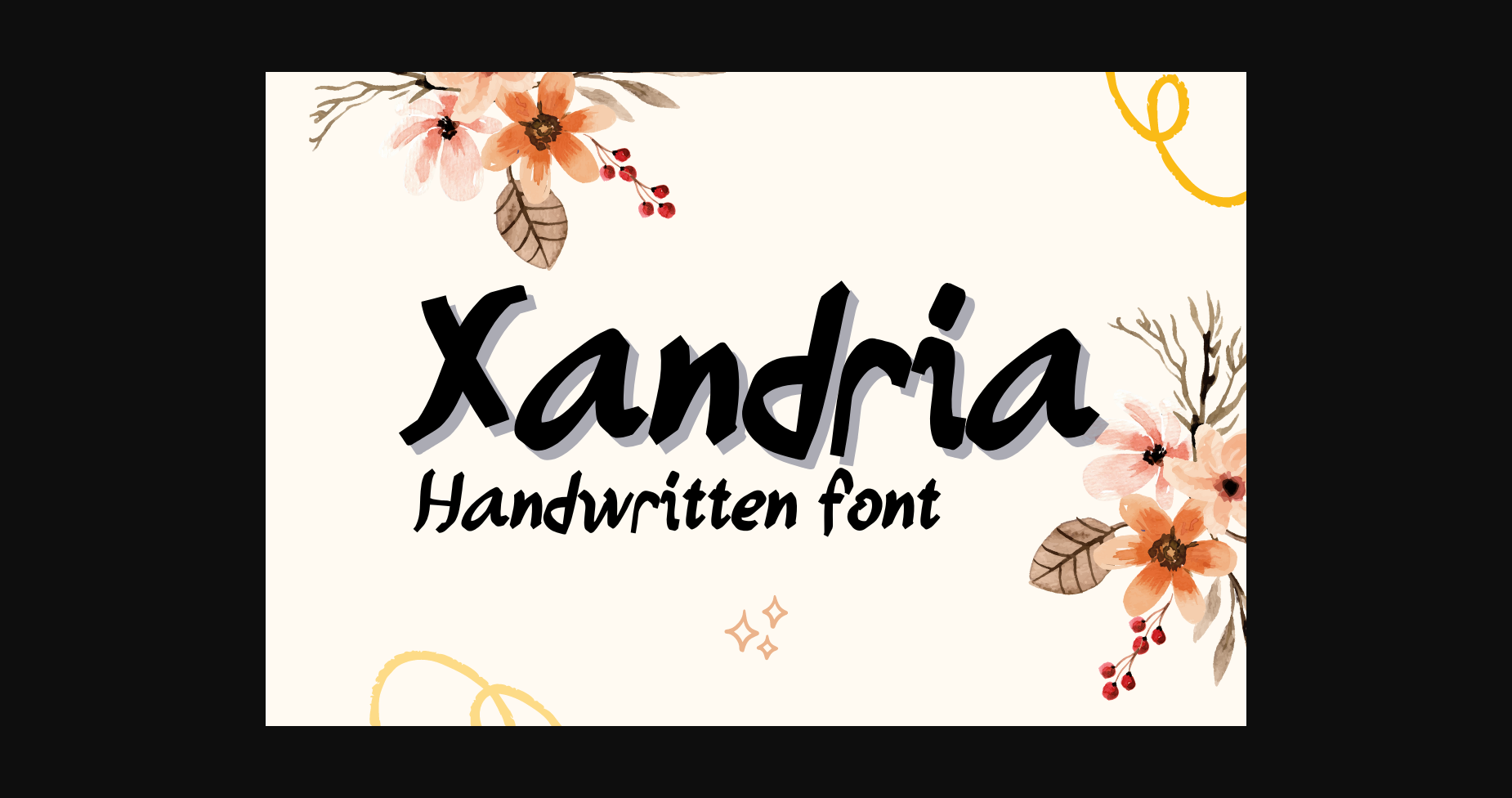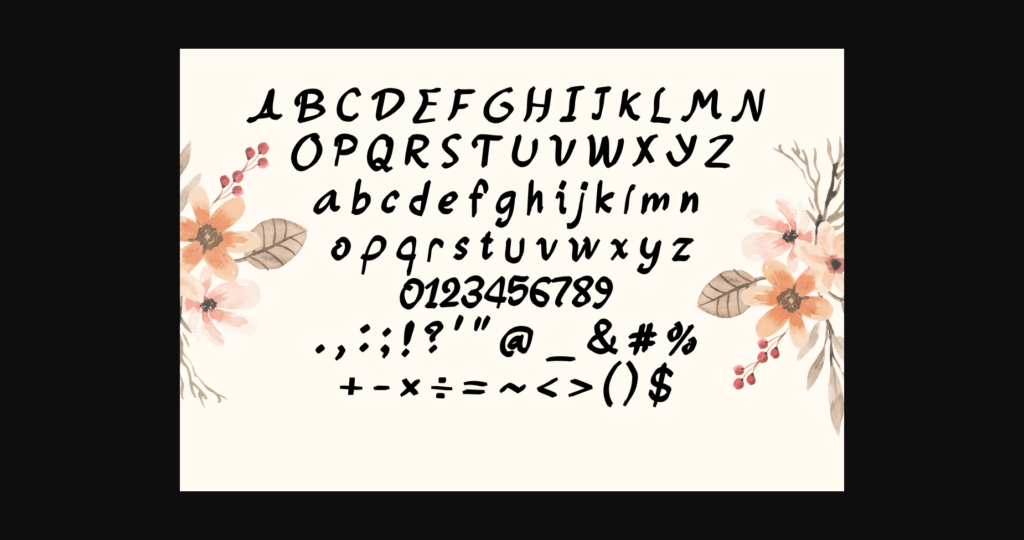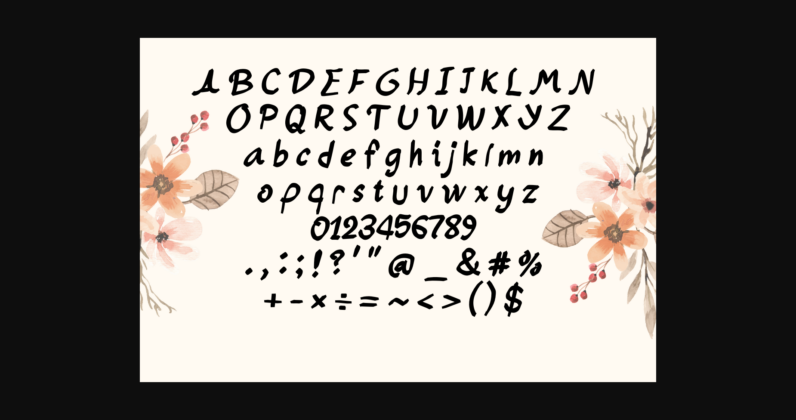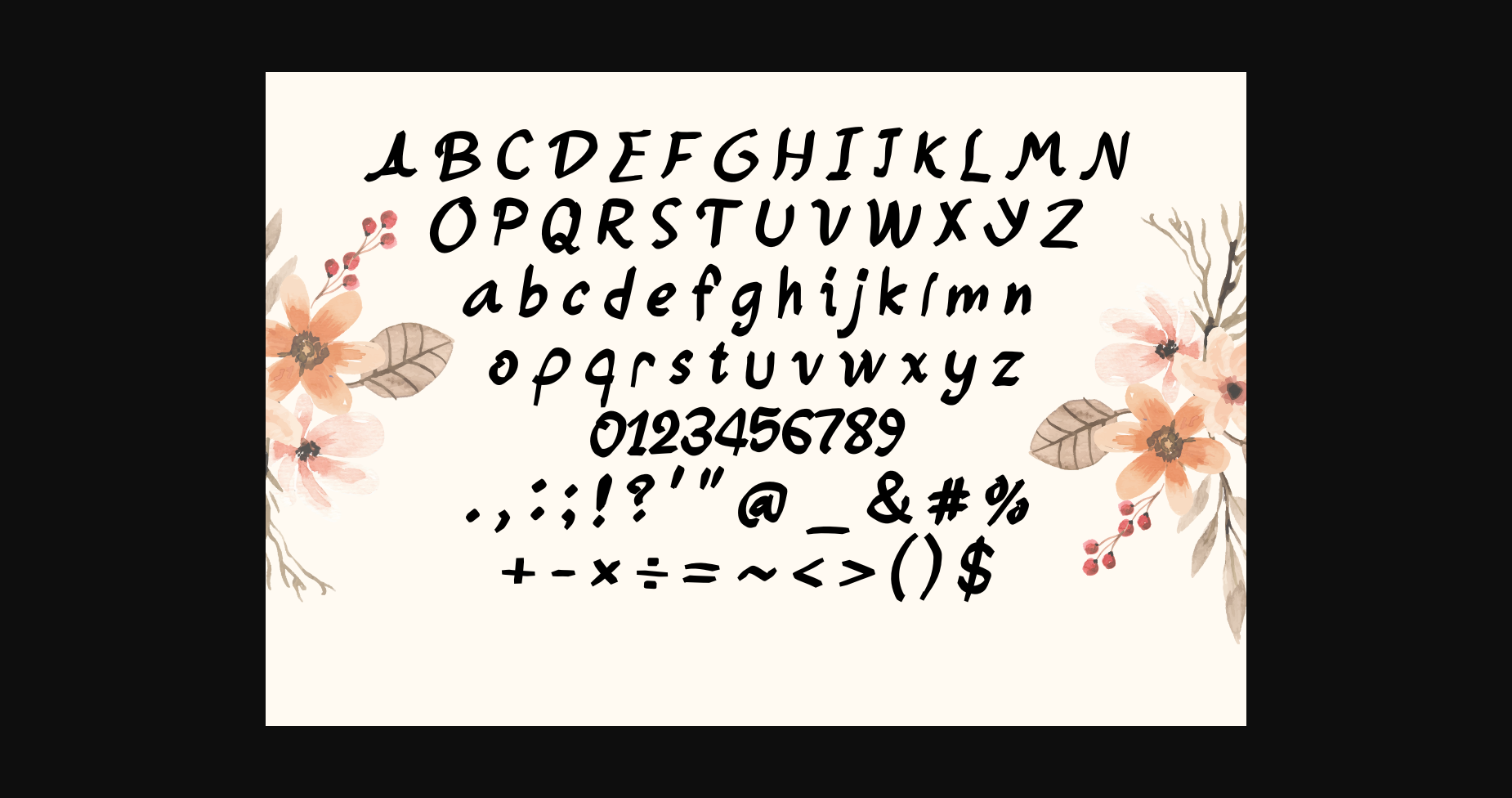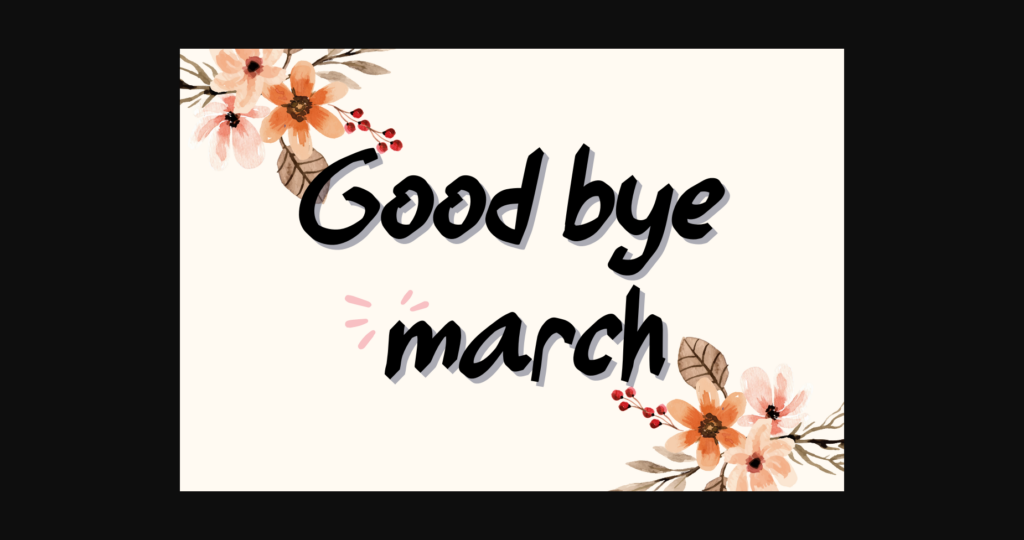
About Xandria Font
Xandria is a friendly and beautiful handwritten font. You can use it for taking notes, writing a diary, or making greeting cards.It can also be used for other designs, such as banners, content, mugs, cards, shirts, stationery, social media posts, and more!